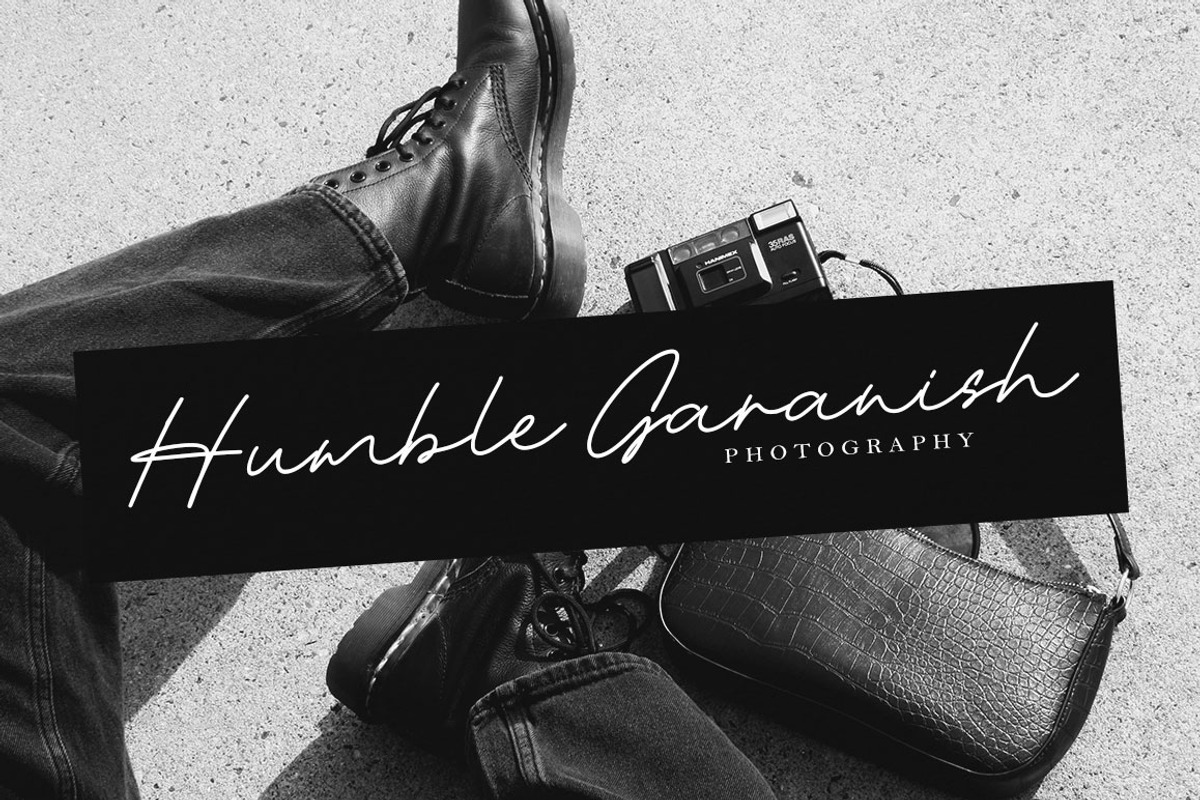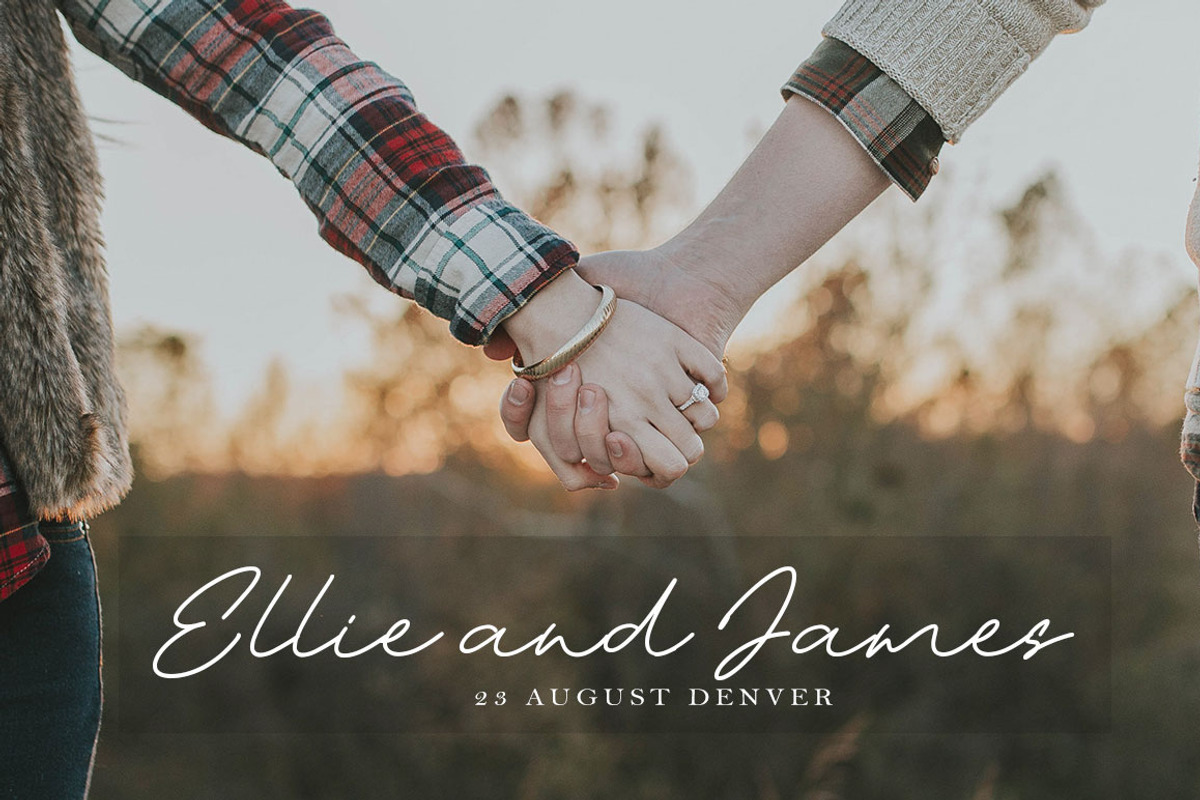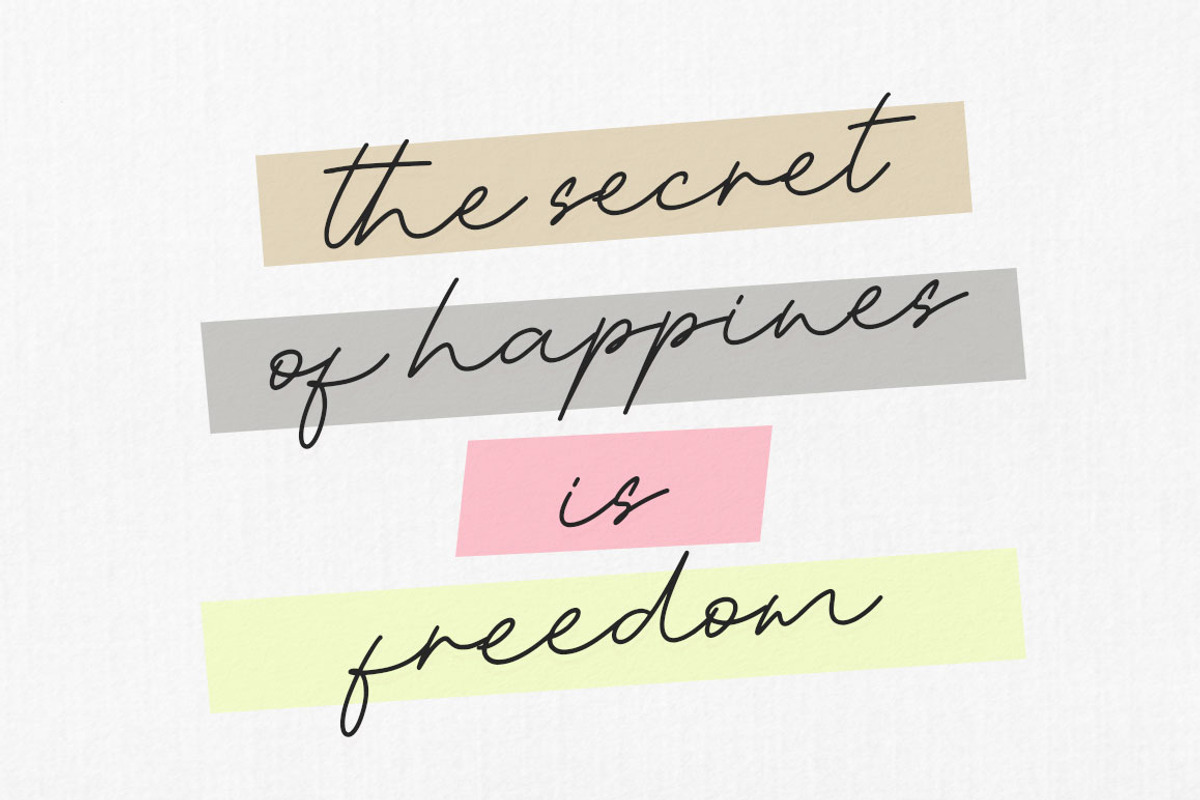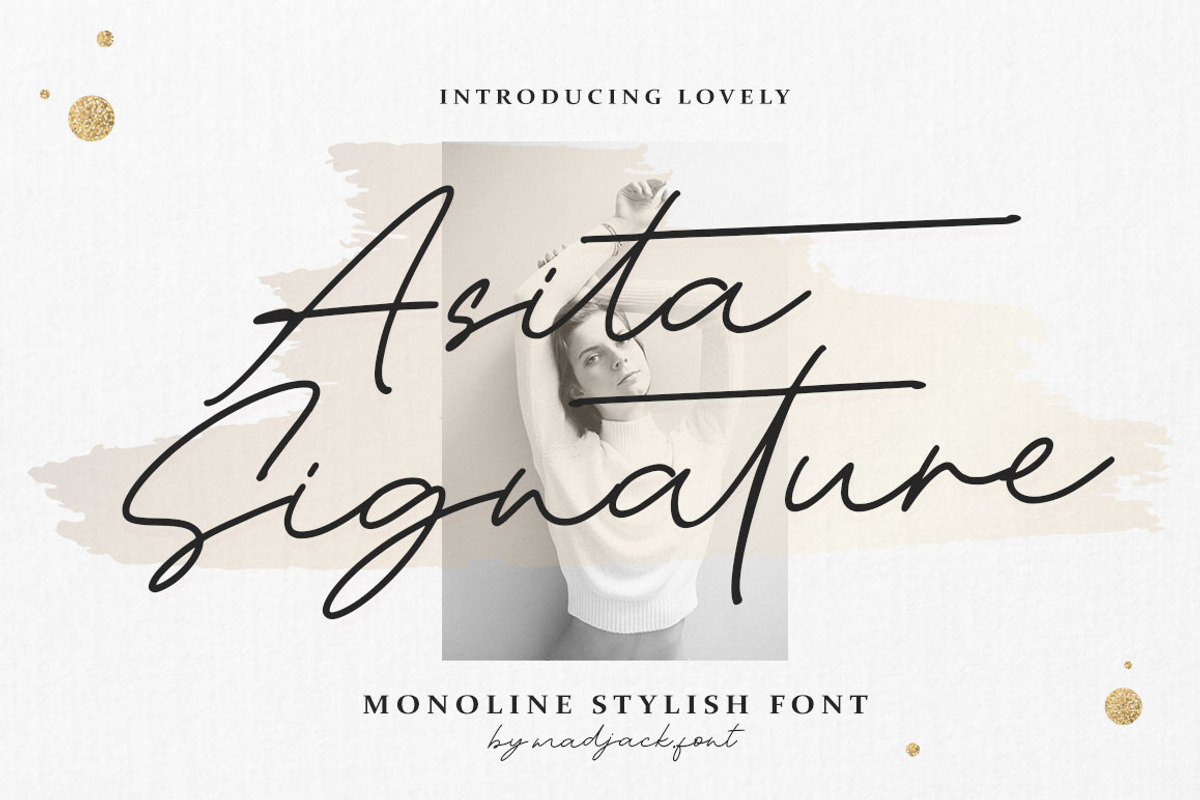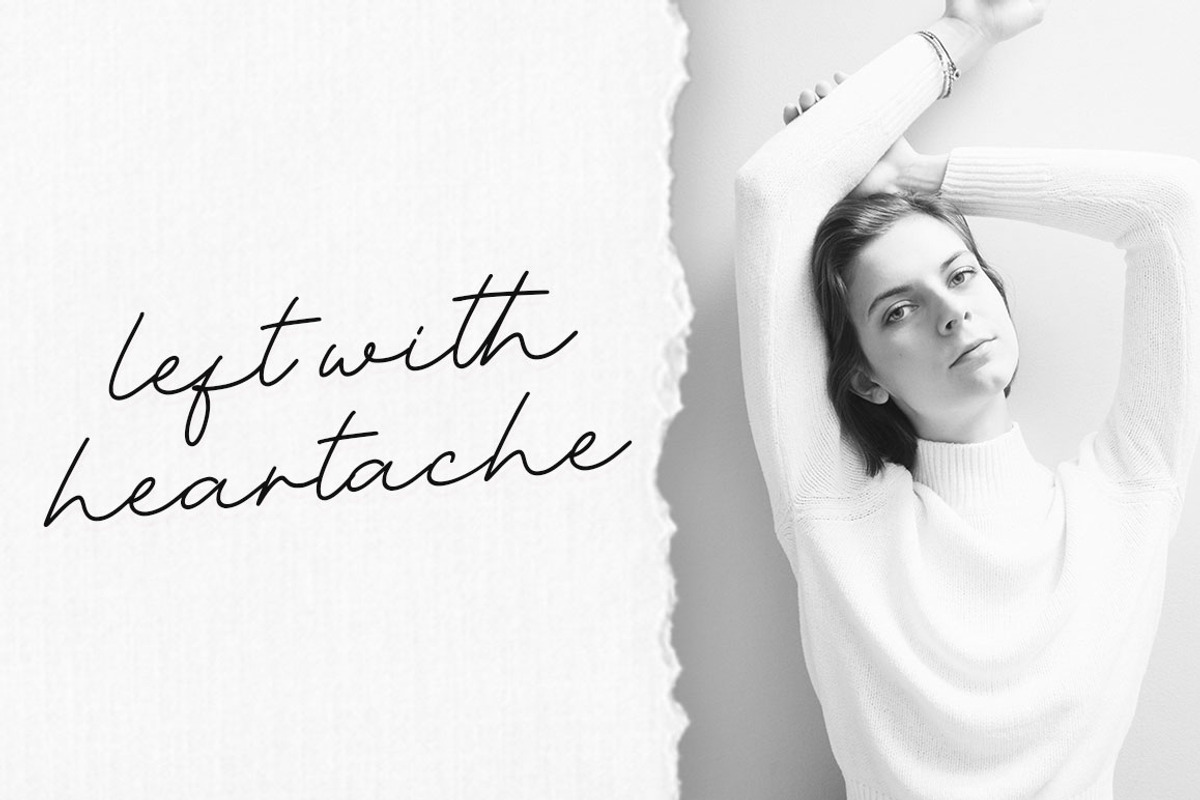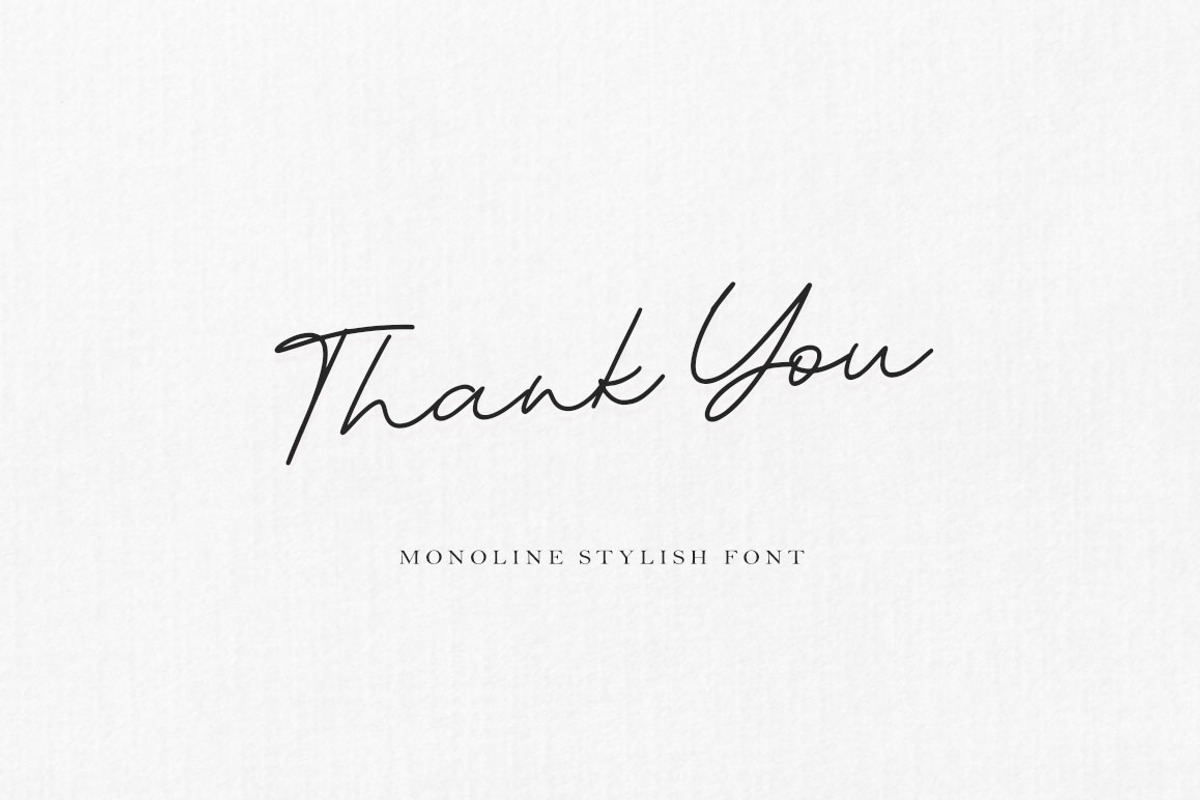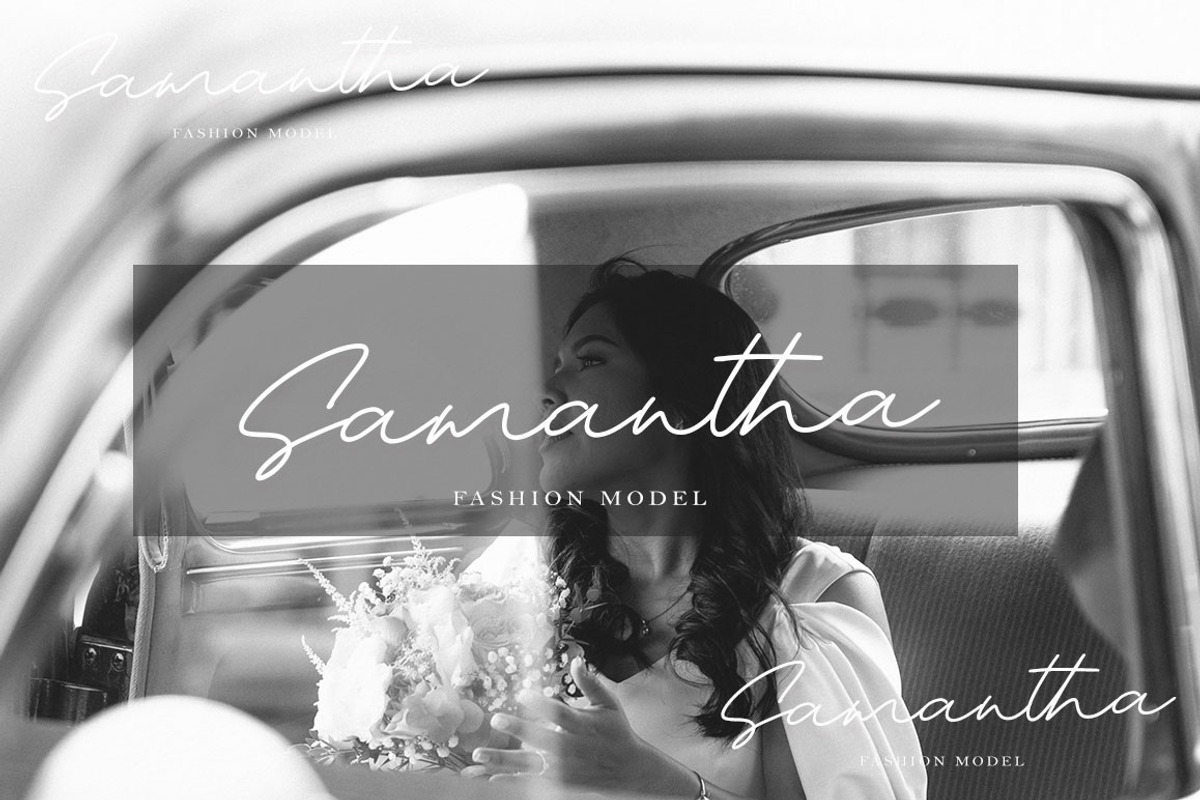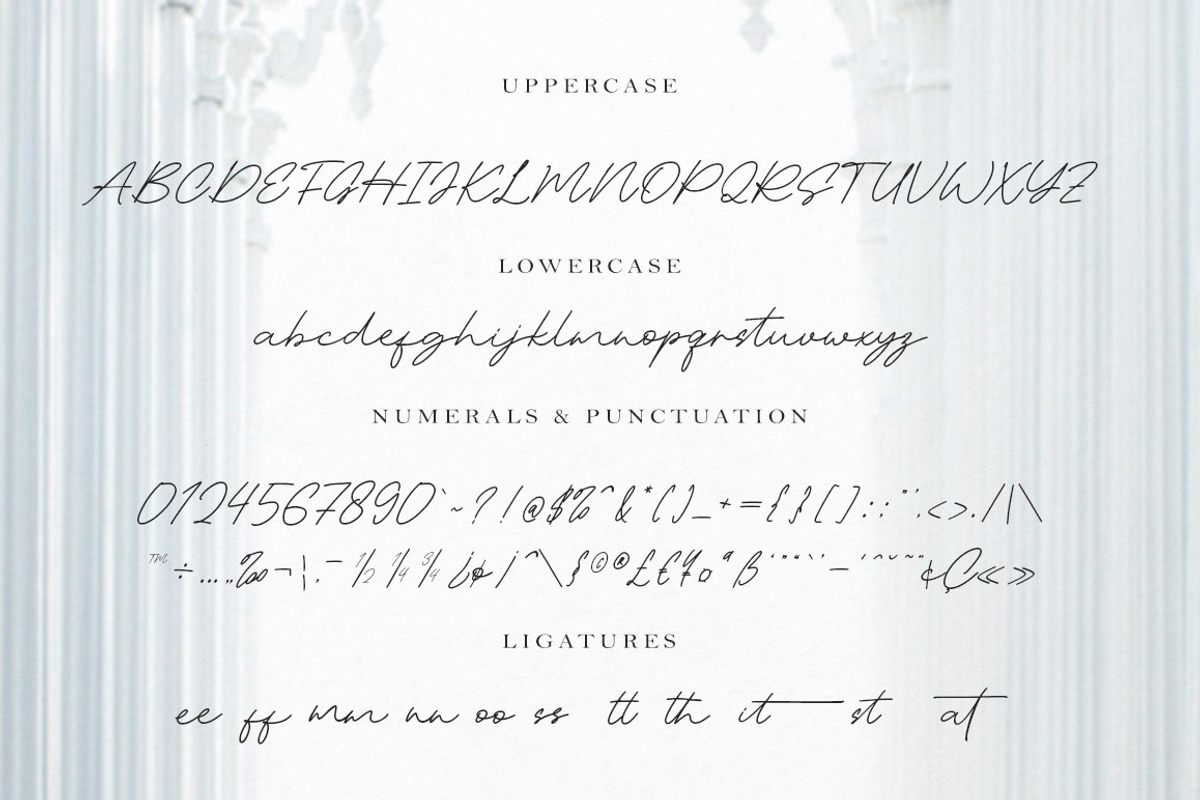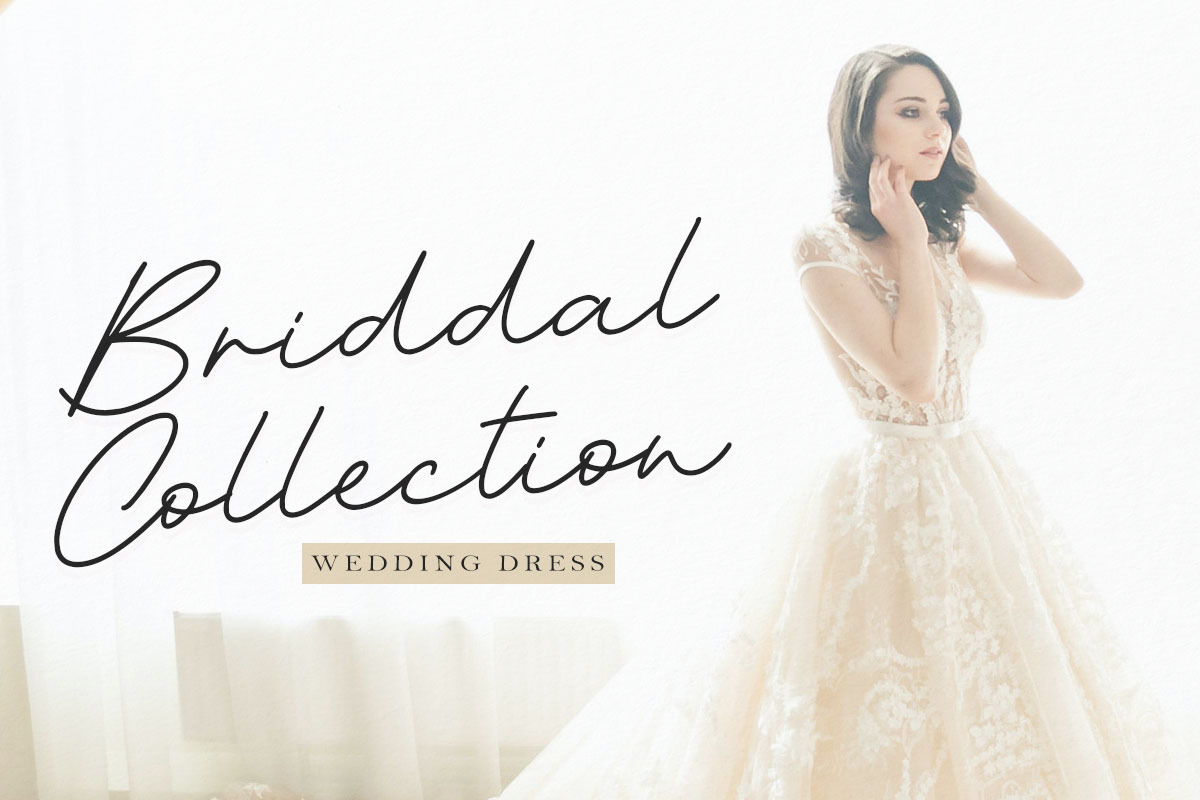
Asita Signature
Asita Signature is beautiful and simple handwriting, contemporary and fashionable, Asita Signature looks elegant for various designs. This elegant font is legible and looks great as a title or body text. This font will be perfect for various designs for magazine headlines, social media, branding, wedding invitations, cards, etc.
The Asita Signature font includes ligatures, capital letters, and alternate letters. You need a program that supports OpenType features such as Adobe Illustrator CS, Adobe Photoshop CC, Adobe Indesign and Corel Draw X6/X7. and you can also access alternative glyphs via Font Book (Mac users) or Windows Character Map (Windows users).